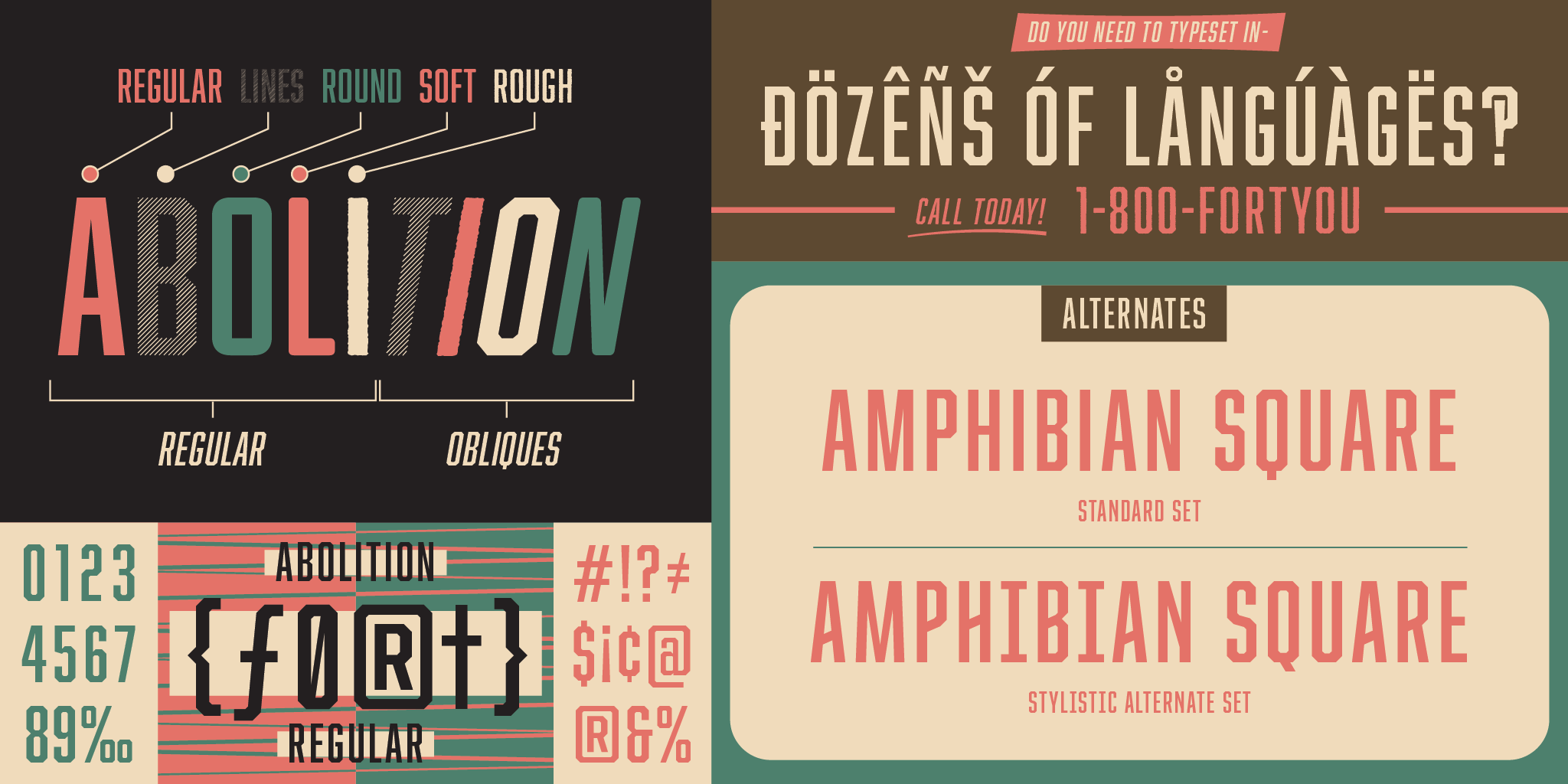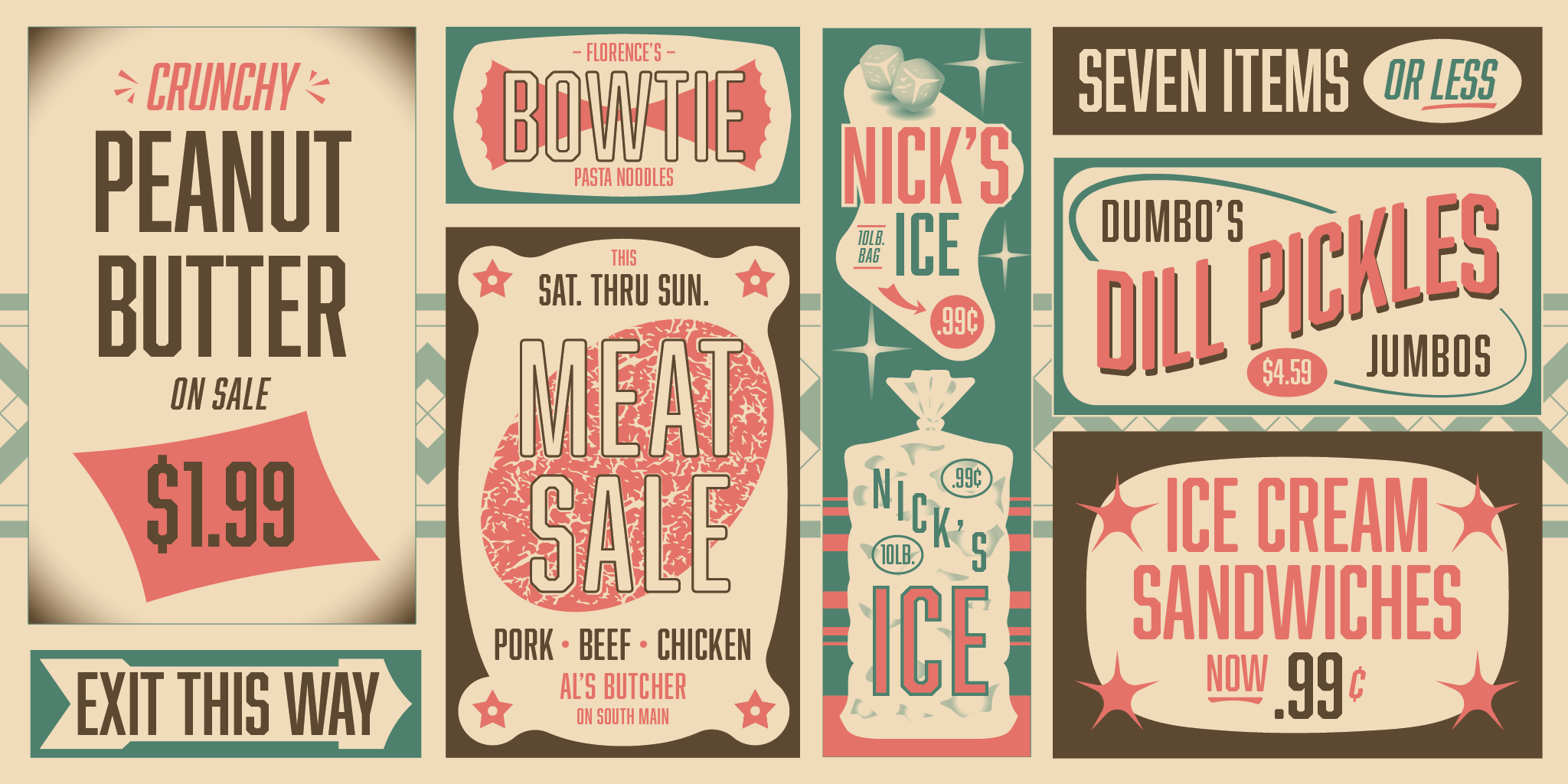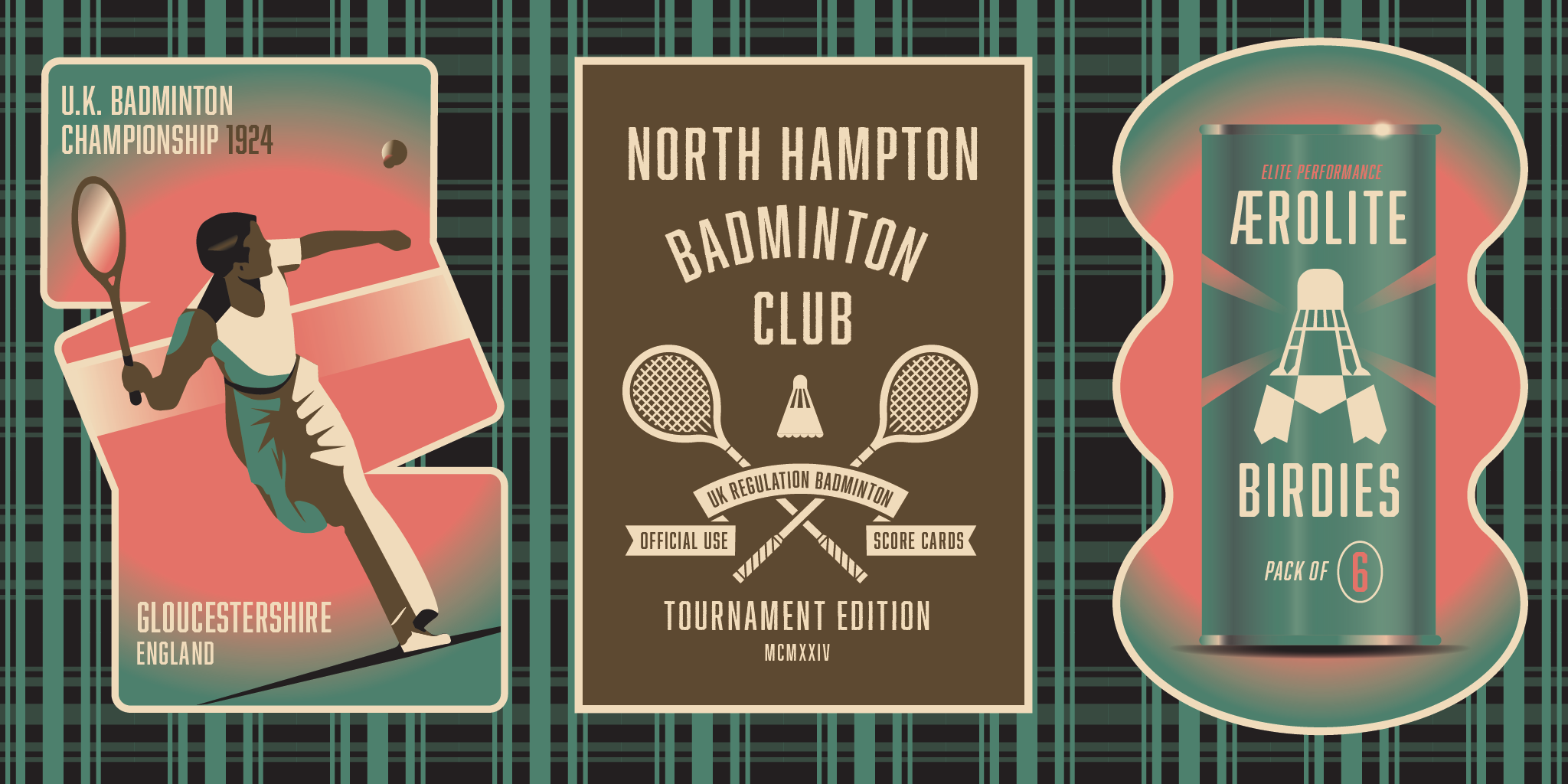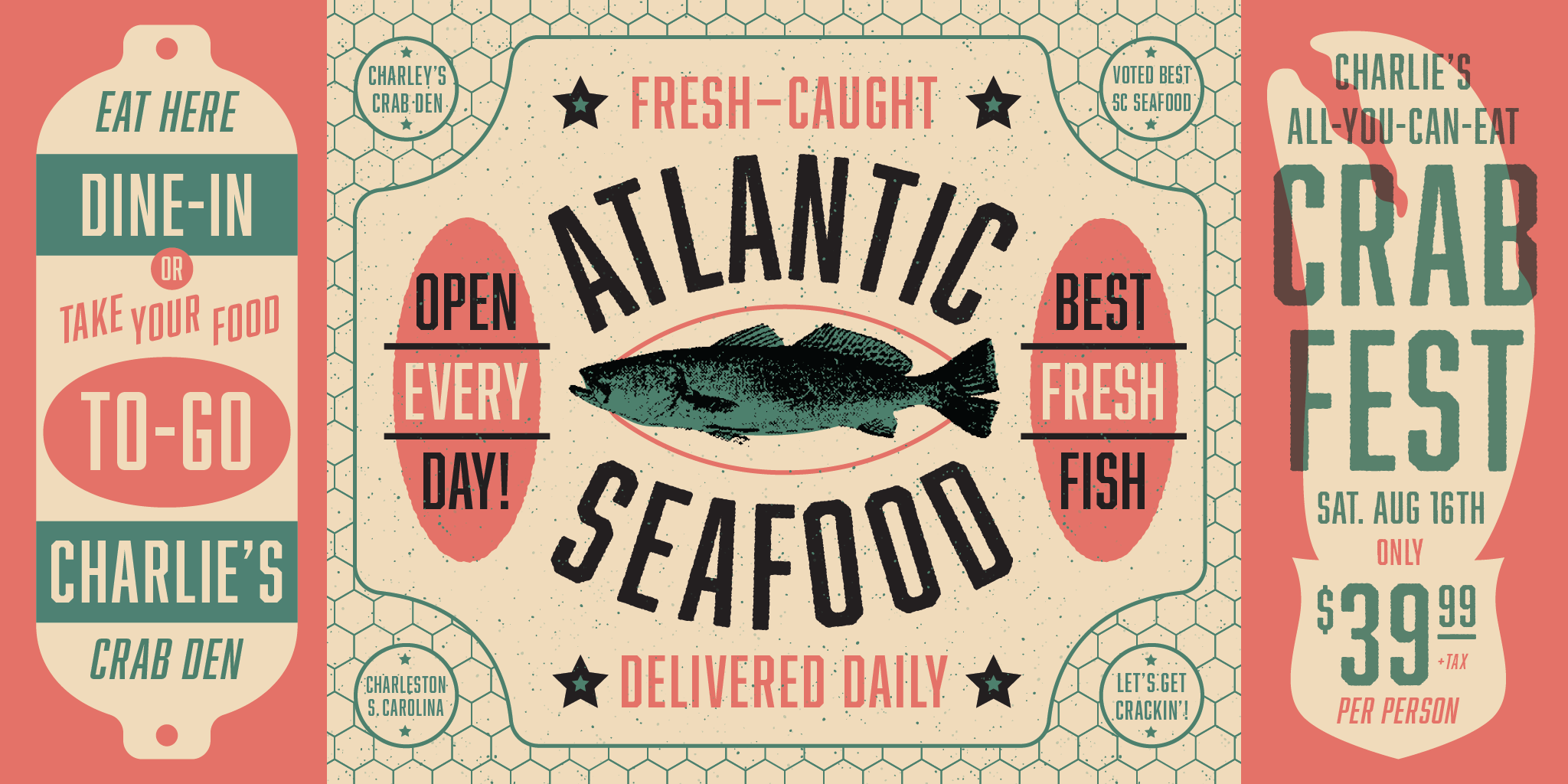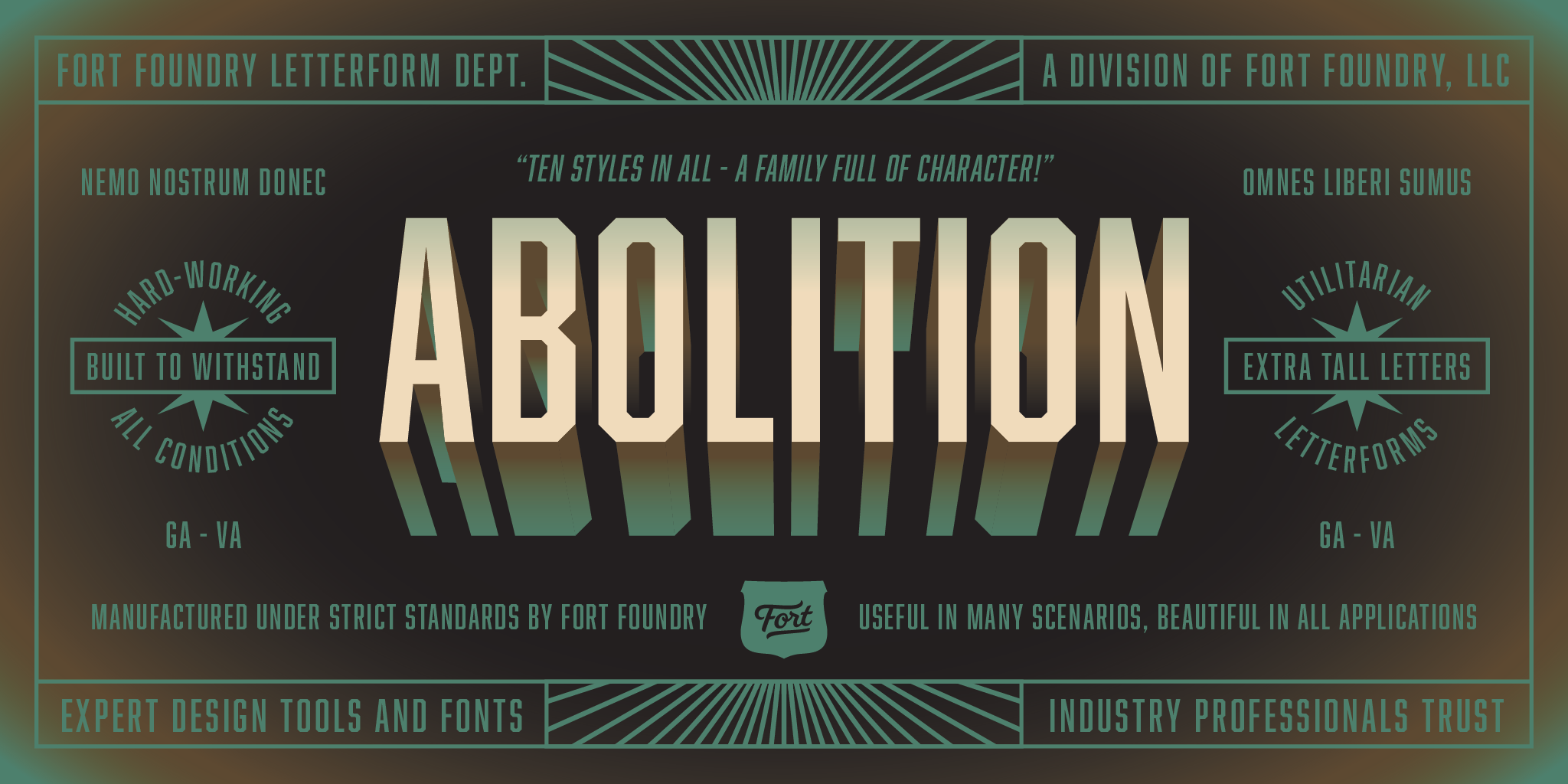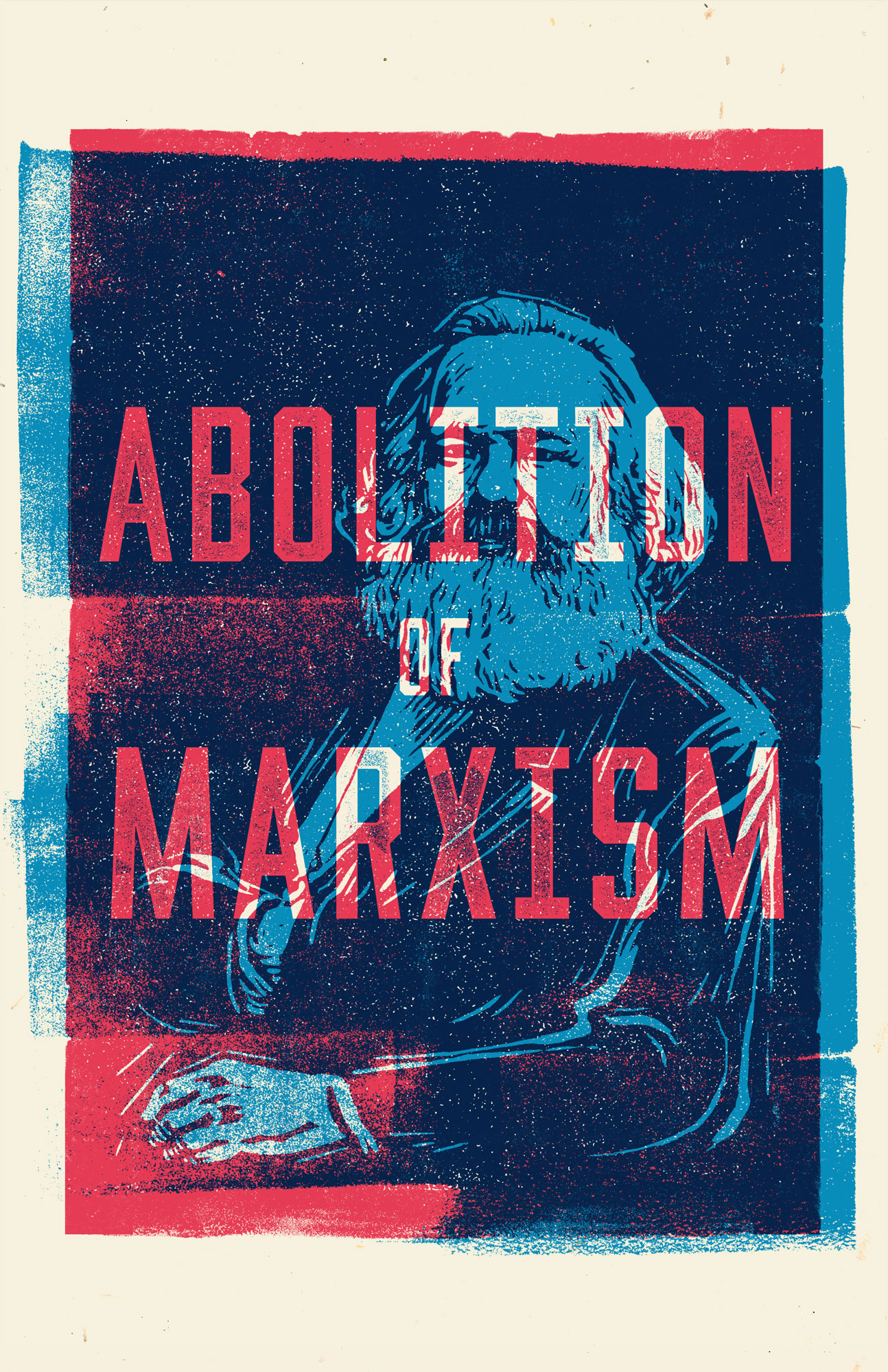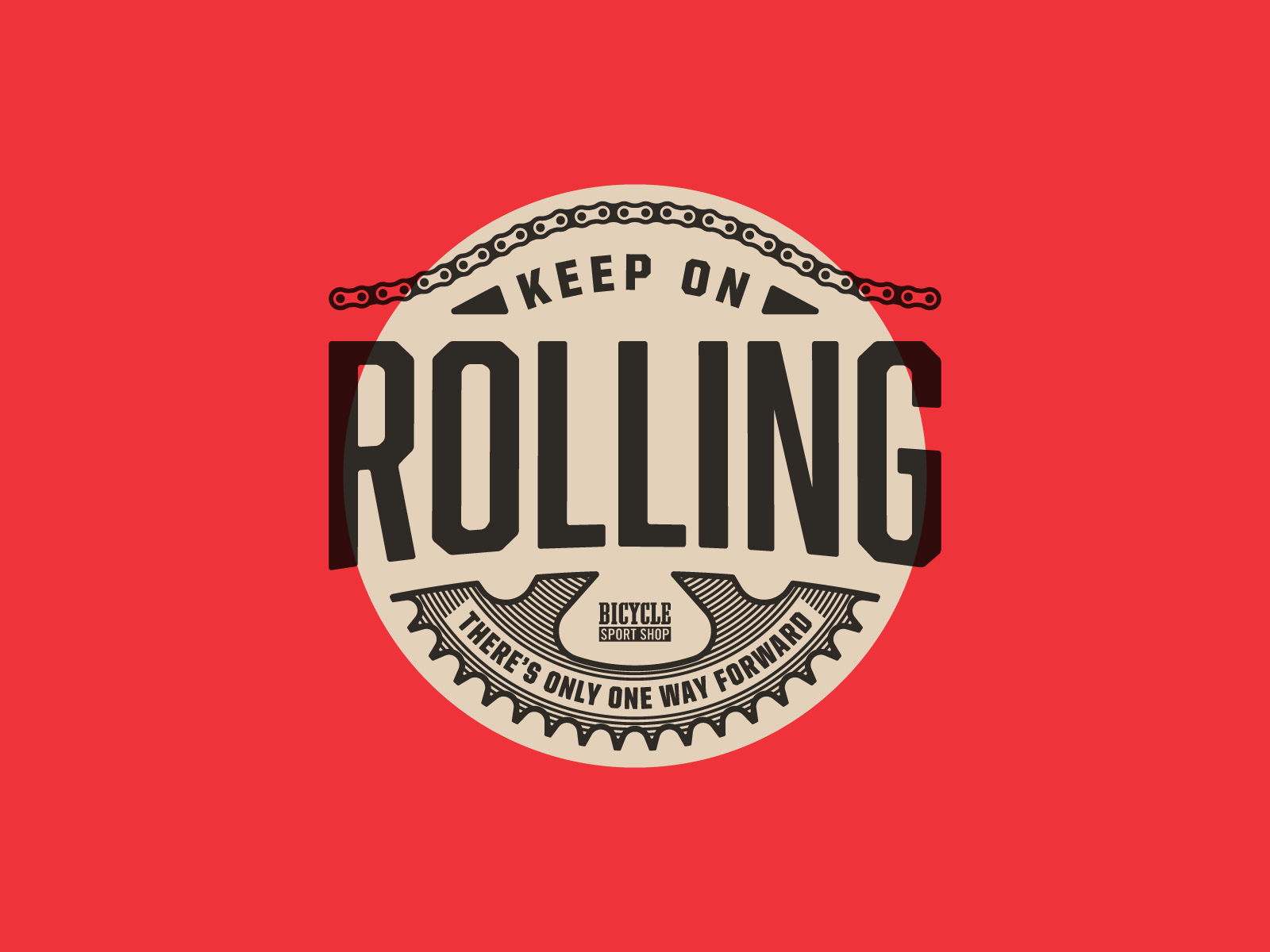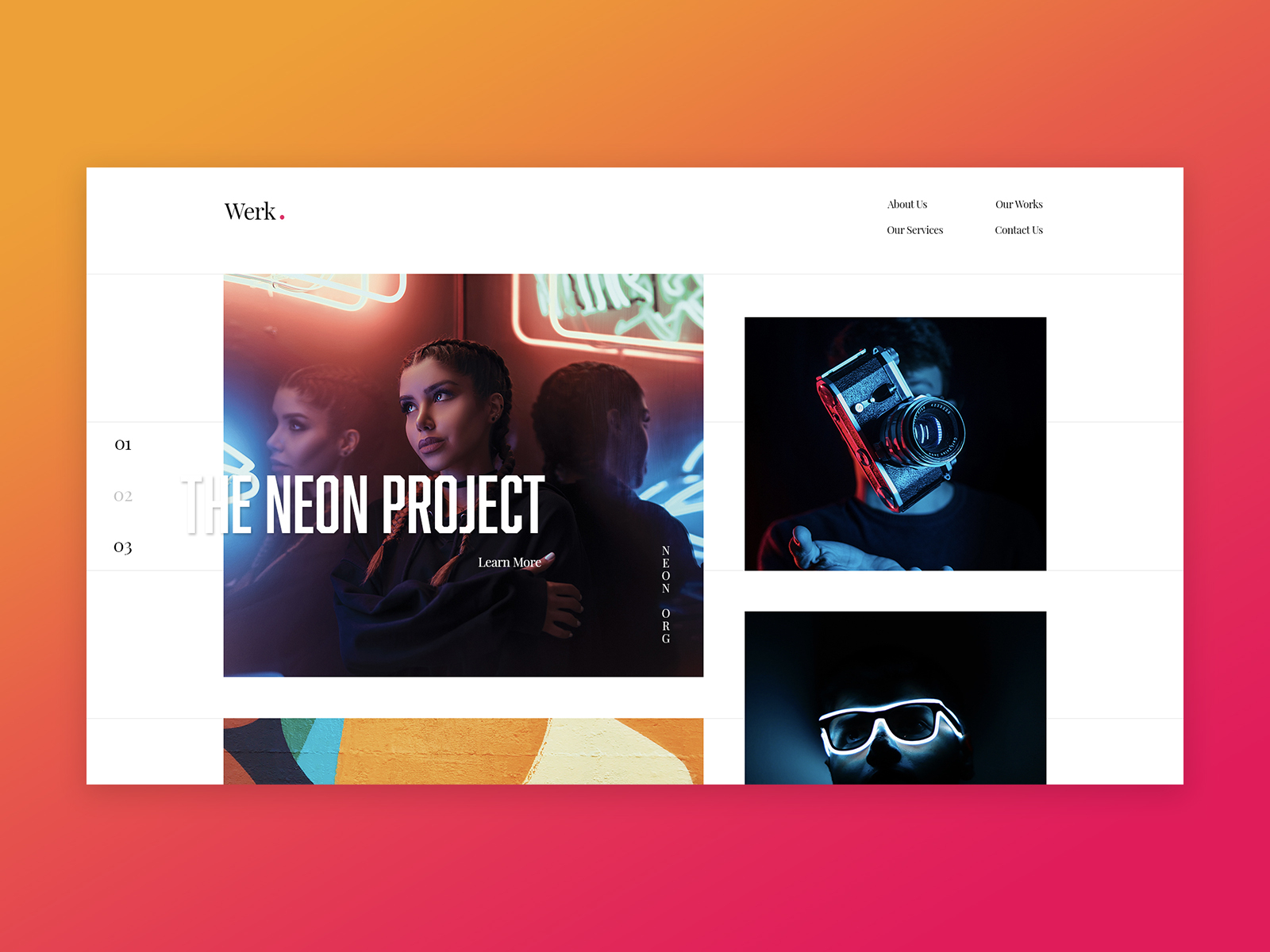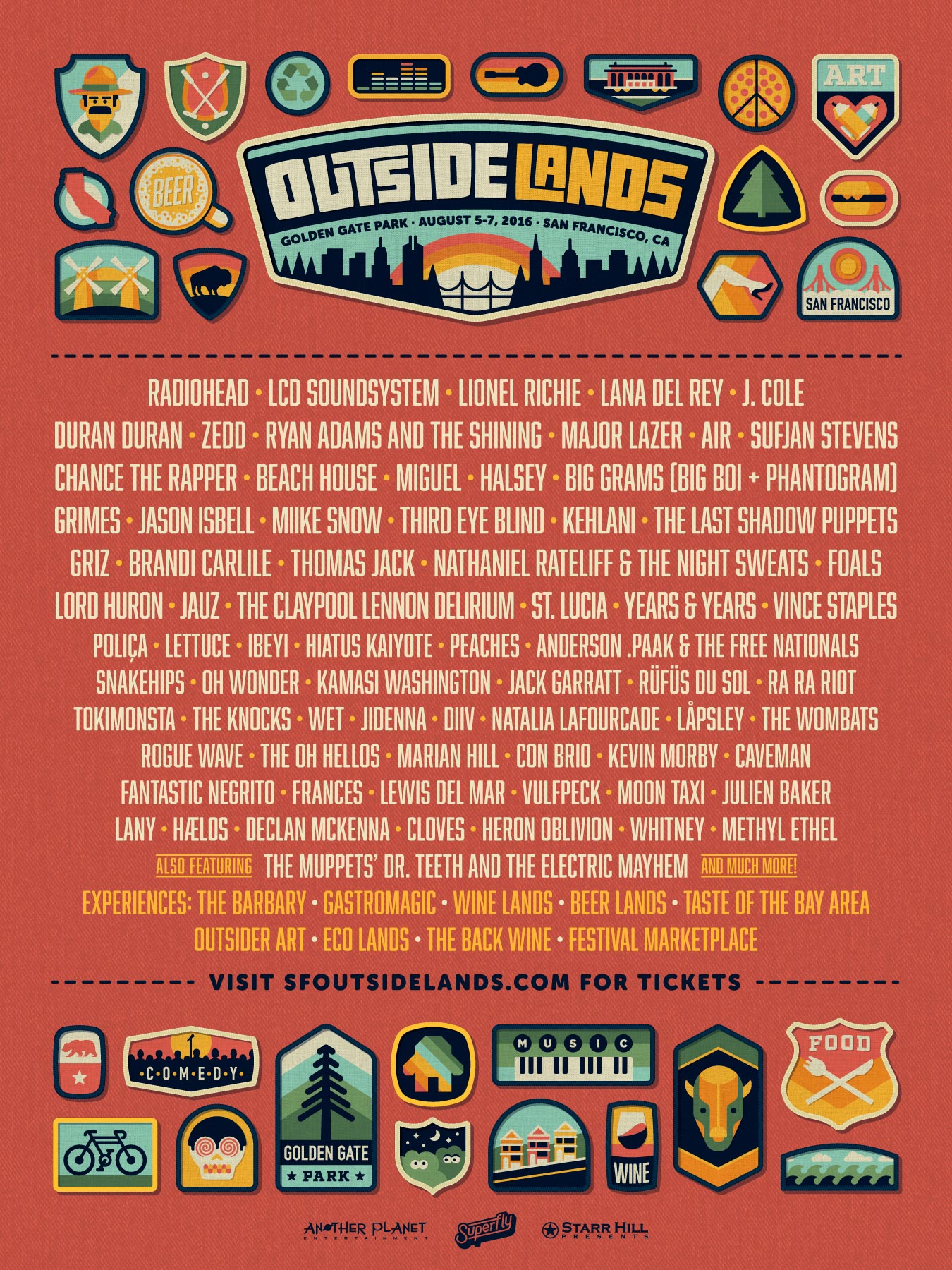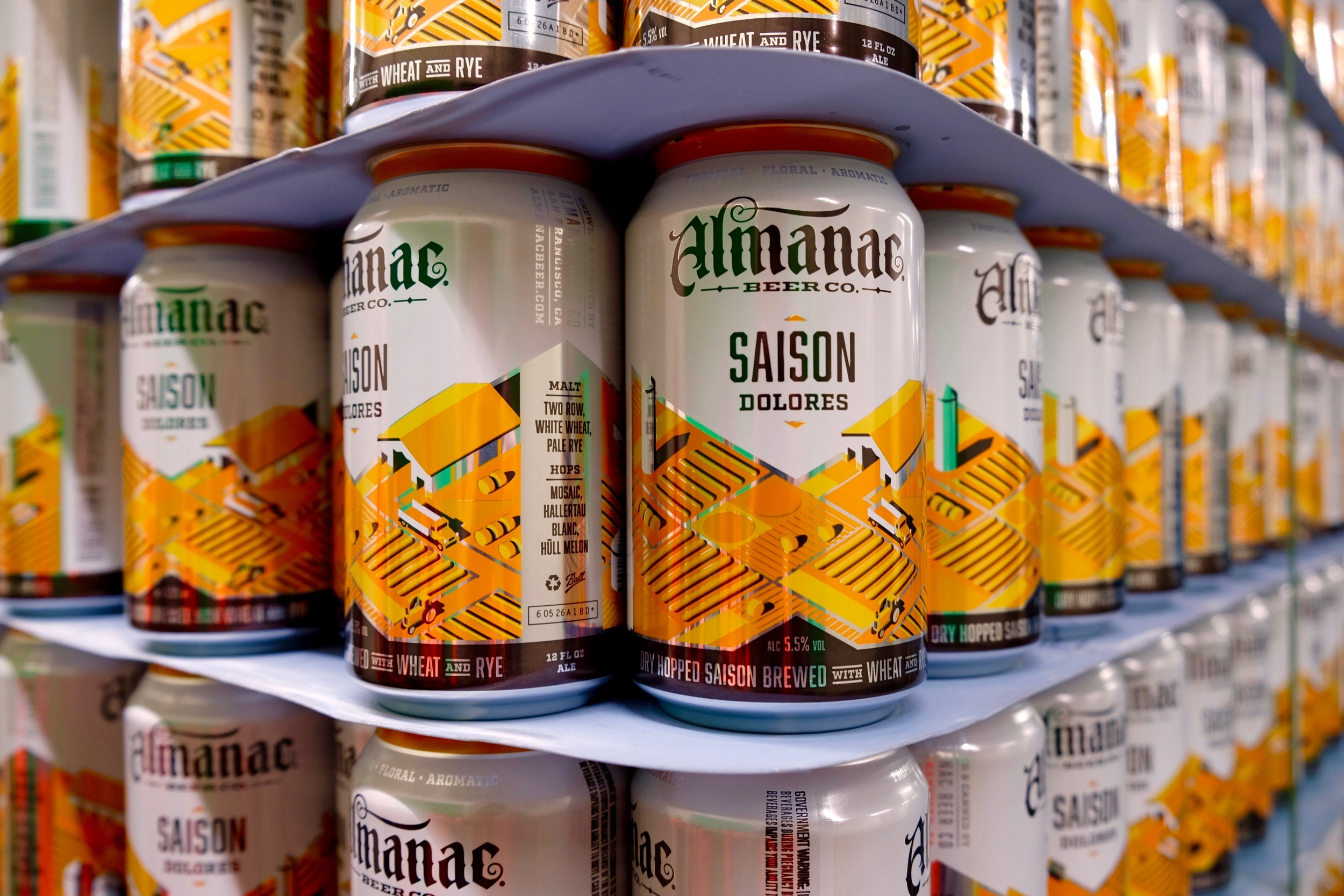
Abolition
Sans
10 Styles
Fractions
Obliques
Chamfer or round
Tabular figures
Condensed and dependable with an industrial work ethic.
Abolition is a highly modified sans-serif version of Bourbon that comes with some a few surprises of its own. The typeface underwent an extensive revision in 2013. Features include stylistic alternates and international language support.